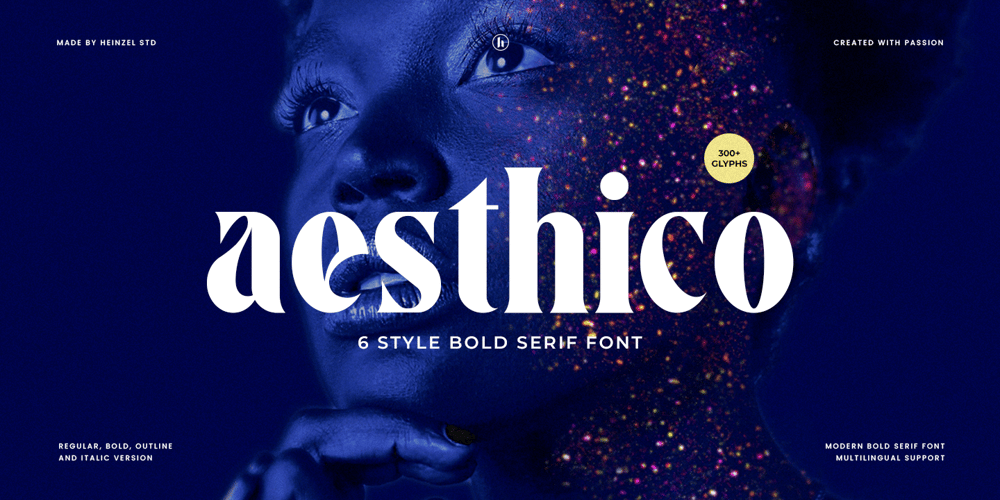
Aesthico Font Family was designed by Nofi Sofyan Hadi and published by Heinzel Std. Aesthico contains 6 styles and family package options. Aesthico is modern, elegant, fashion serif font inspired by a popular magazine logo. Aesthico is great for headlines, logos, covers, posters and other creative designs. This font is PUA encoded which means you can access all of the amazing glyphs with ease!